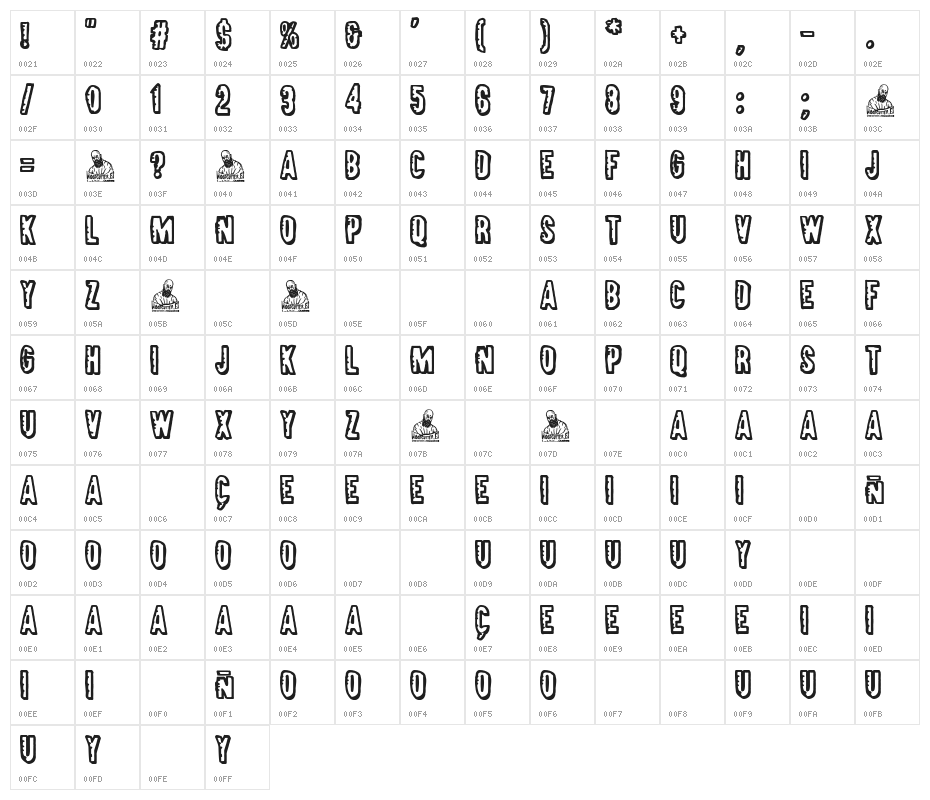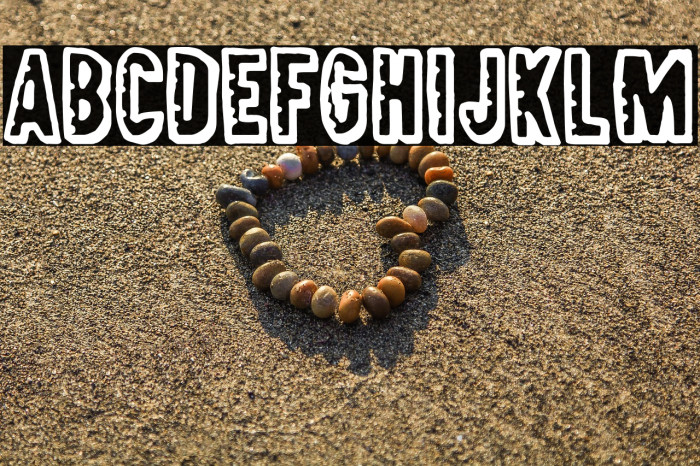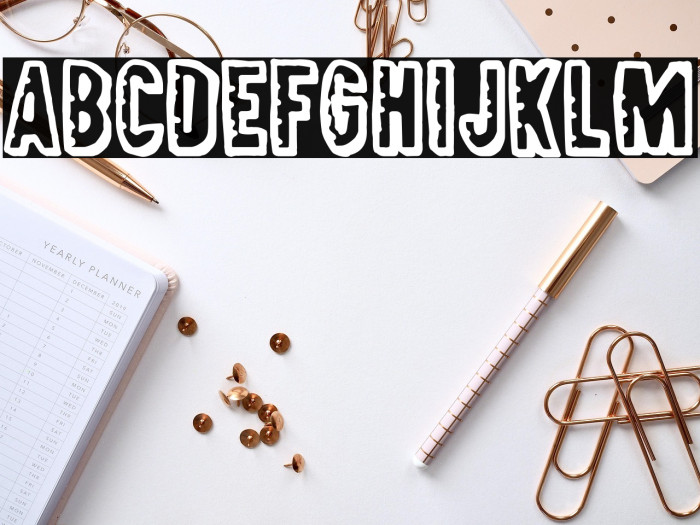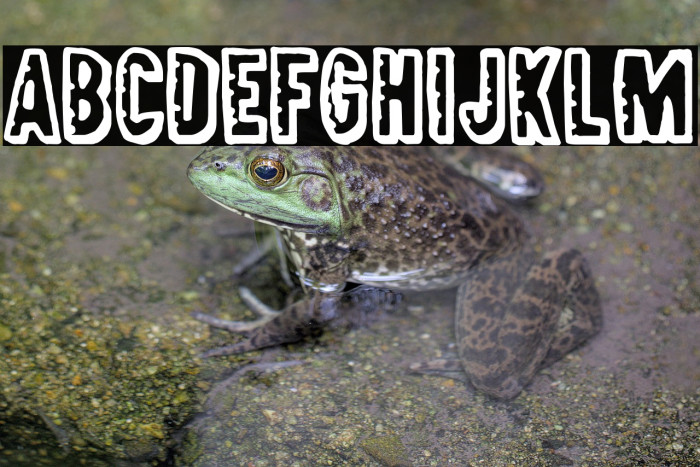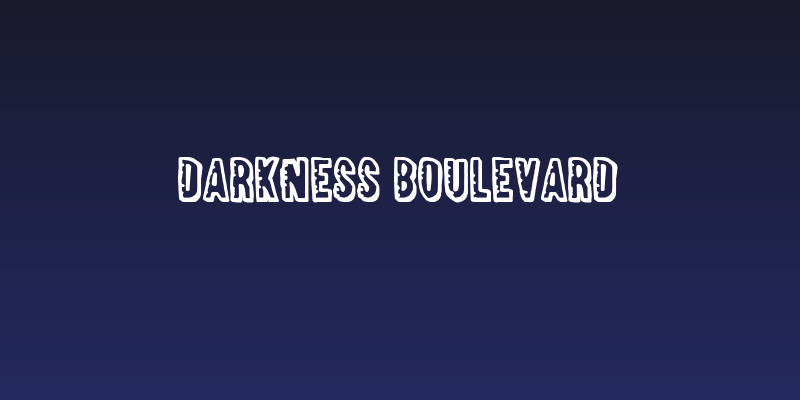
Darkness Boulevard Font
Darkness Boulevard Description
This font features a bold, rugged style with a distressed, textured appearance that gives it a gritty, urban feel. The characters are outlined with a thick, uneven stroke that adds to its raw and edgy aesthetic. The uppercase and lowercase letters maintain a consistent height and width, creating a uniform look despite the rough edges. Numbers and special characters follow the same design, ensuring a cohesive appearance across all glyphs. This font is perfect for projects that require a bold statement or a touch of rebellion, such as posters, album covers, or branding for alternative or streetwear brands.
| Overall Style | Urban, Edgy, Gritty |
| Proposed Projects | Ideal for posters, album covers, streetwear branding, and rebellious-themed designs. |